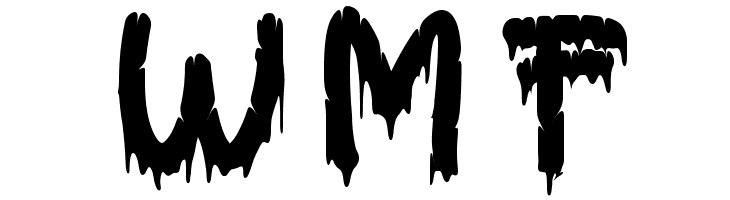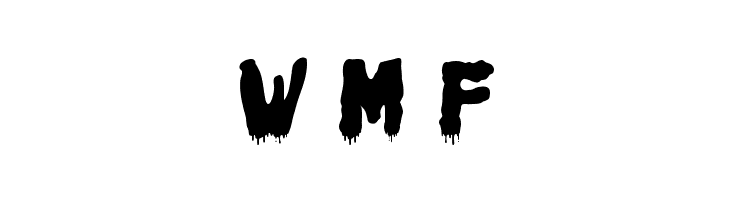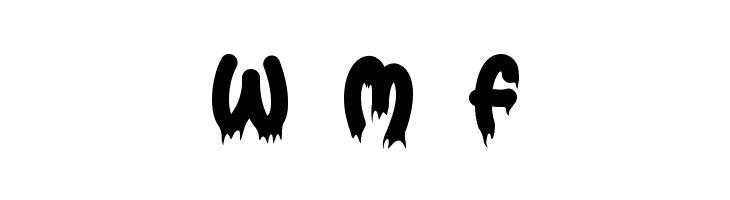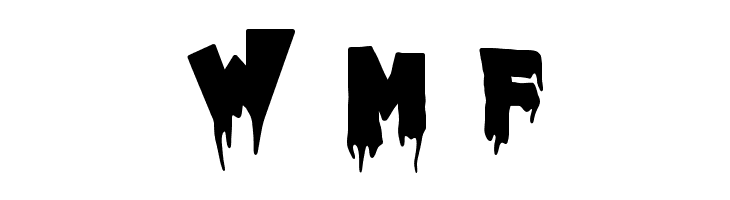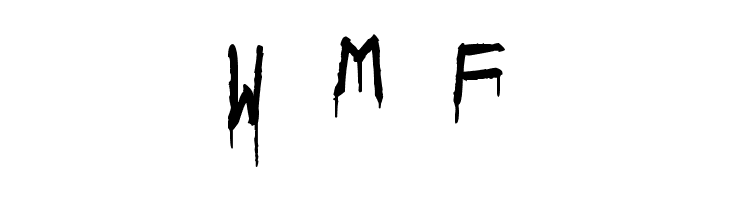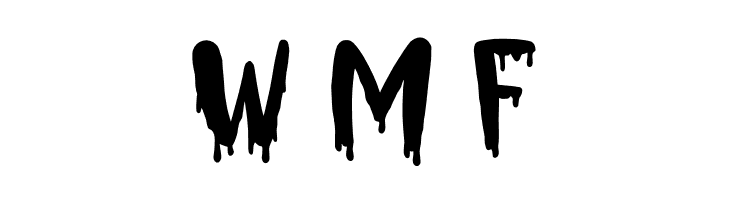
A dripping, horror-themed font with a bold, eerie style.
A spooky, dripping font perfect for Halloween themes.
A bold, dripping font perfect for horror-themed designs.
A bold, dripping font with a spooky, haunted style.
A spooky, dripping font ideal for Halloween themes.
A bold, dripping font ideal for horror and Halloween themes.
A bold, dripping font perfect for horror themes.
A bold, dripping font with a horror-themed style.
A bold, dripping font with a grunge and horror-inspired aesthetic.
A bold, dripping style font with a unique, edgy appearance.